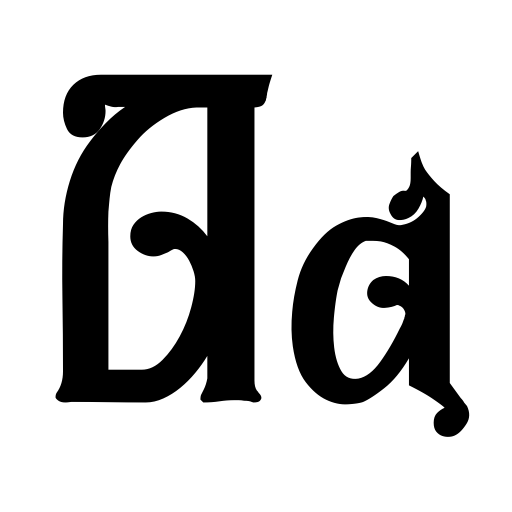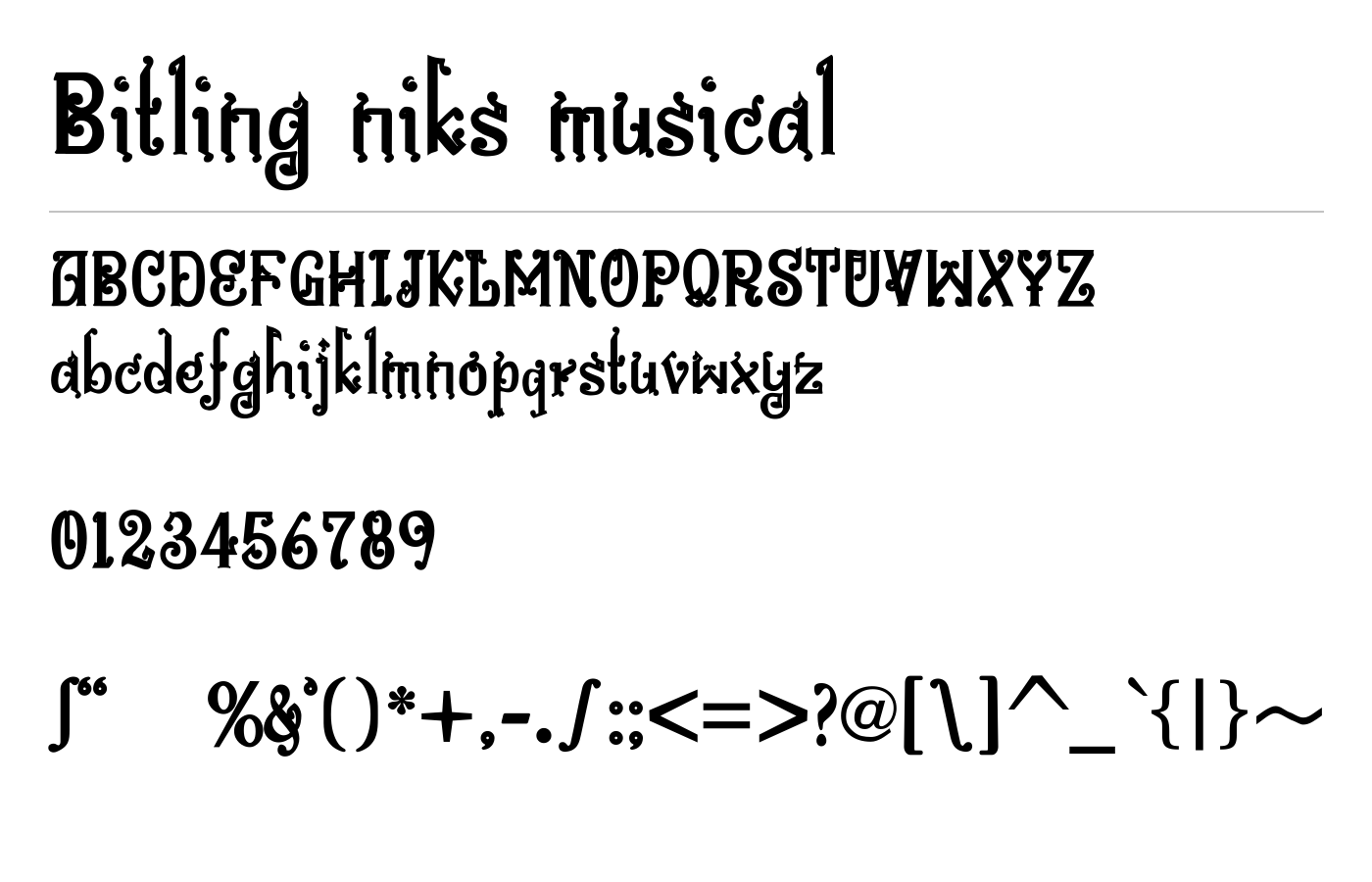
Bitling niks musical is a decorative serif font with a whimsical, musical flair, characterized by its bold weight and unique note-like embellishments on stroke terminals. Its tall, condensed letterforms feature high contrast between thick and thin strokes, with intricate details that give it a playful yet vintage personality. Ideal for creative projects, themed posters, and artistic branding, this font adds a distinctive, rhythmic charm that stands out in display and headline uses.
Bitling niks musical Font
About Bitling niks musical Font